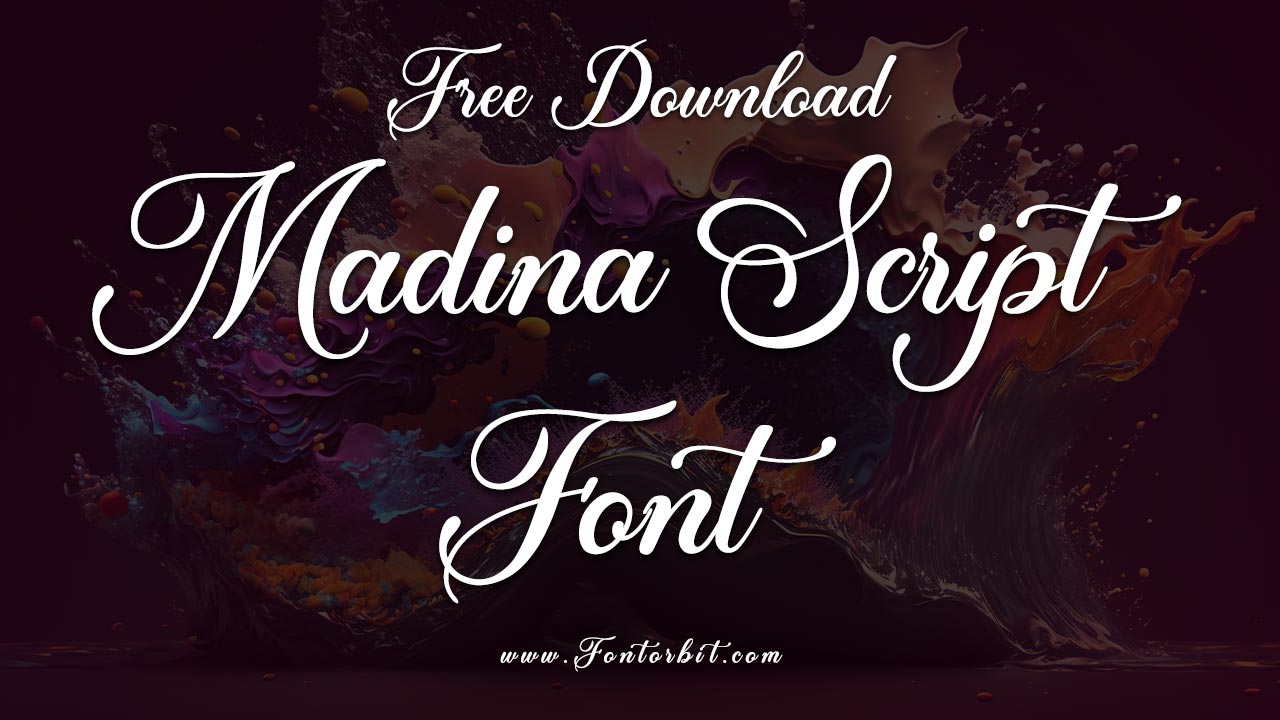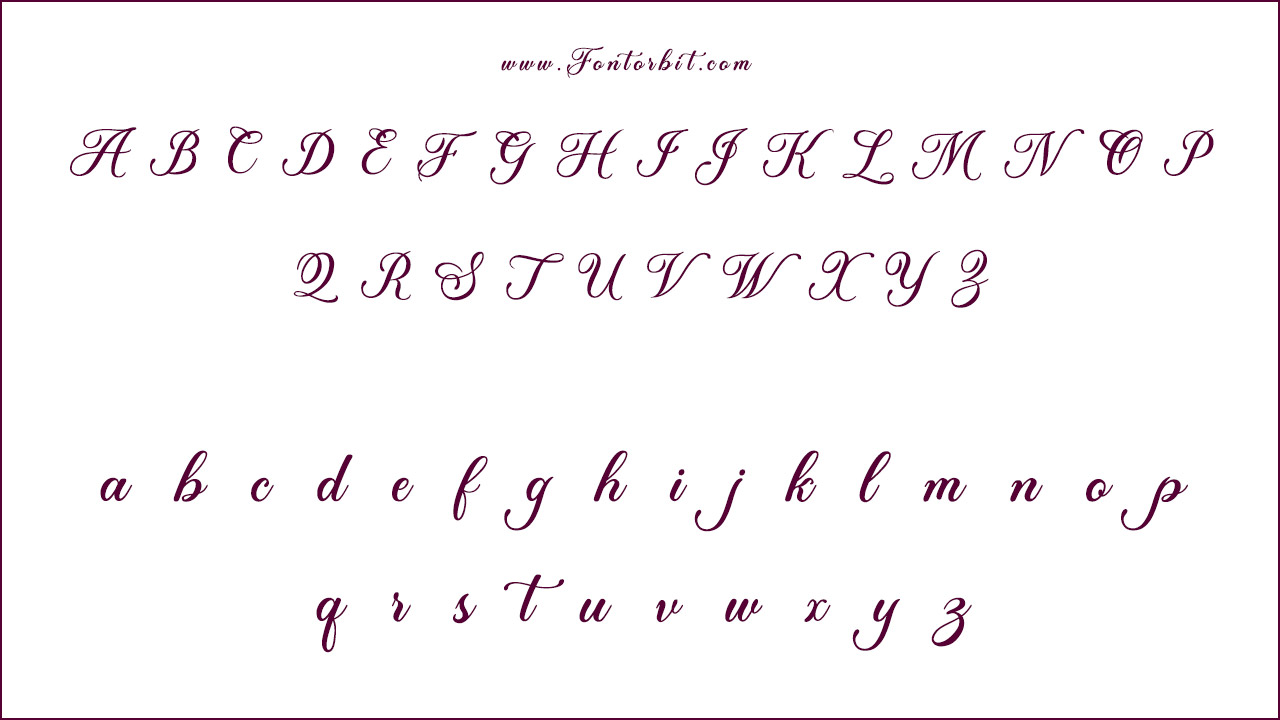
Madina Script is a stylish and elegant font designed by Stíl Stúdíós. Released on MyFonts, it has quickly gained popularity due to its graceful curves and readability. It belongs to the Script family and offers a sophisticated, handwritten look ideal for various design projects.
Notable Uses Of Madina Script
Madina Script is perfect for:
- Wedding Invitations
- Greeting Cards
- Website Headers
Madina Script shines in projects that require a personal and elegant touch. It’s great for:
- Event Invitations
- Luxury Branding
- Editorial Design
Madina Script is a versatile and elegant font that can elevate various design projects with its refined style. Whether you’re crafting invitations, branding materials, or digital content, this font adds a touch of sophistication and personal charm.